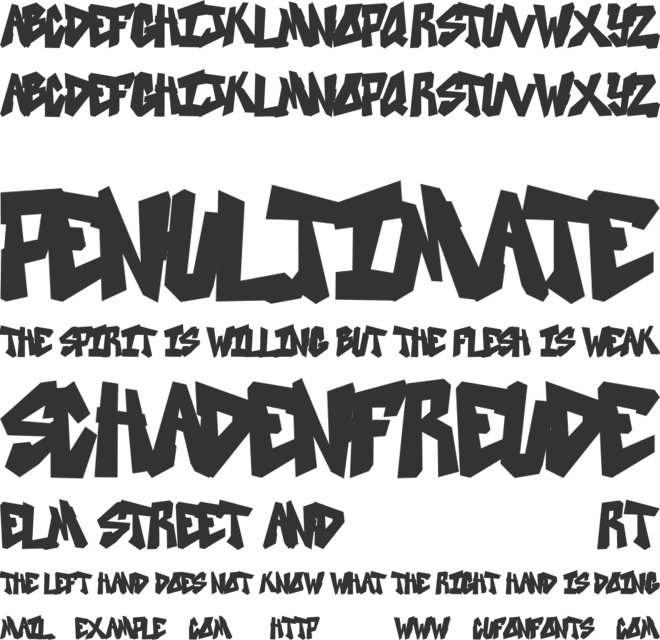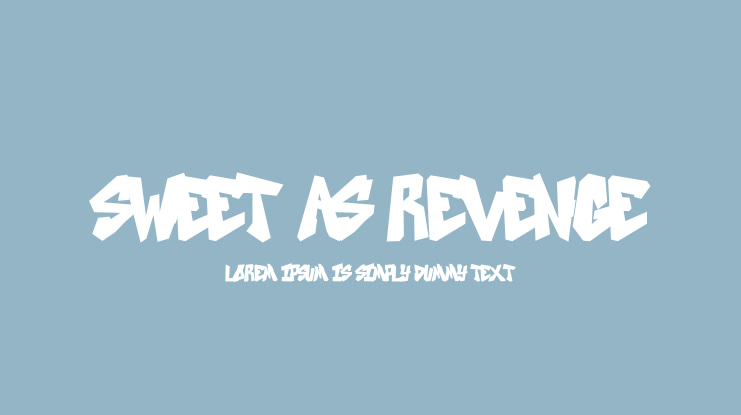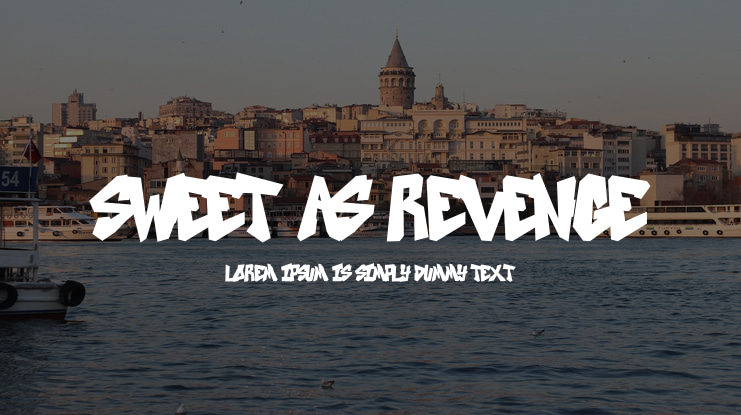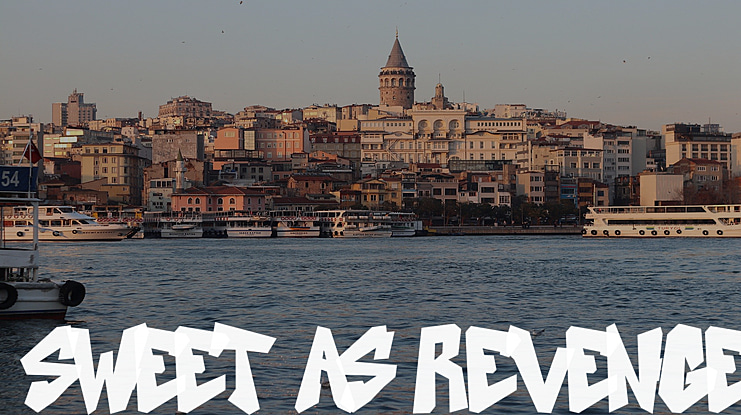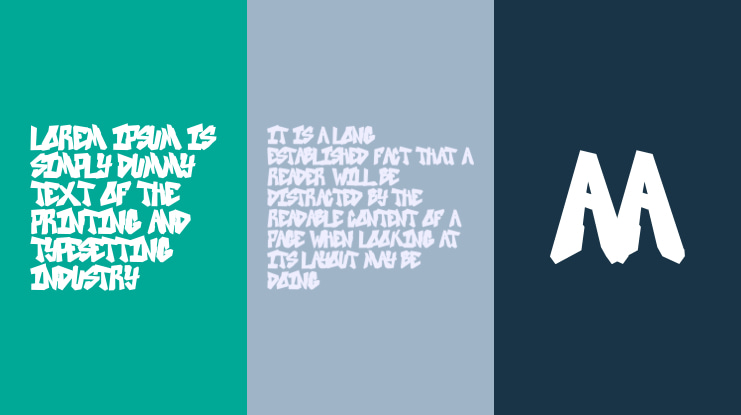
SWEET AS REVENGE Font
Sweet As Revenge is a striking grafitti font. It has a graffiti style which makes it perfect for design which need a street-art look.